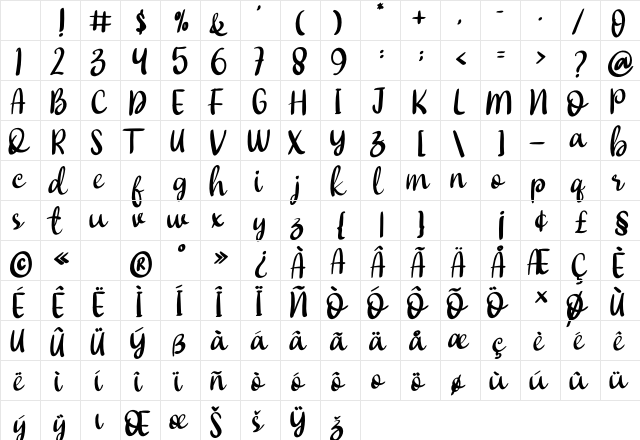
Complete Double Chocolate Regular glyph index. Displaying only characters natively supported by Double Chocolate Regular font.
Double Chocolate is a composed and adaptable typeface that performs quietly and consistently across a wide range of design contexts.